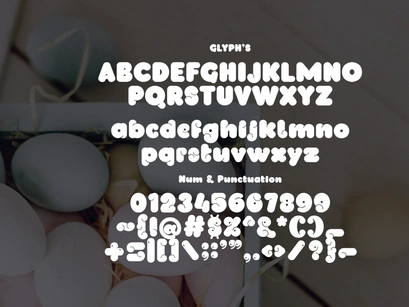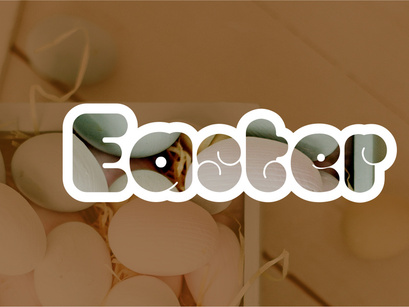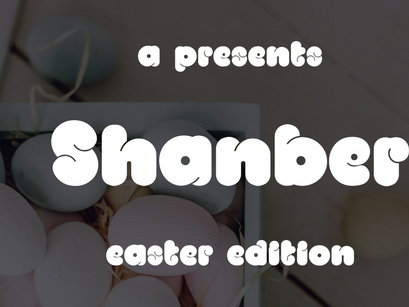
Shanber is a playful, modern font with a fun and rounded design! Perfect for holiday themes, branding, and creative projects that need a cheerful and joyful touch.